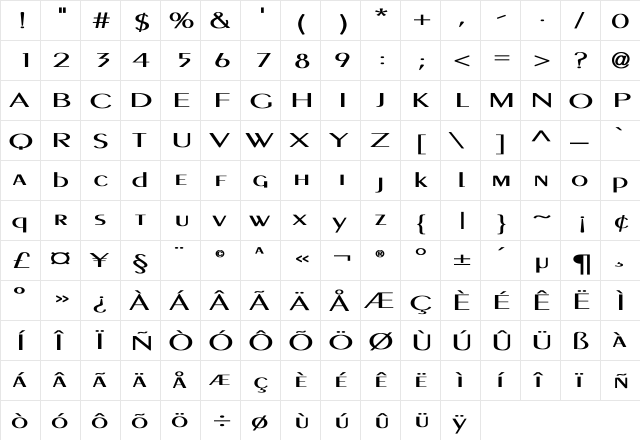
PigNoseTyp Bold Bold
Design Context for PigNoseTyp Bold Typeface
PigNoseTyp Bold takes a measured approach to typography — its balanced proportions and neutral character make it a reliable workhorse for both digital and print work. The heavy weight commands attention and anchors typographic hierarchies.